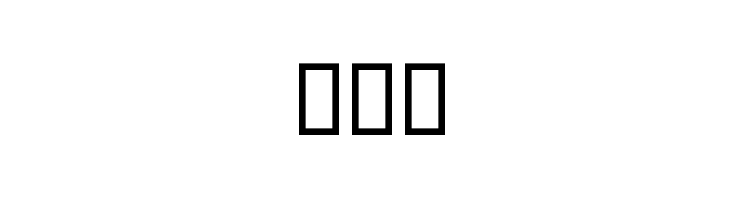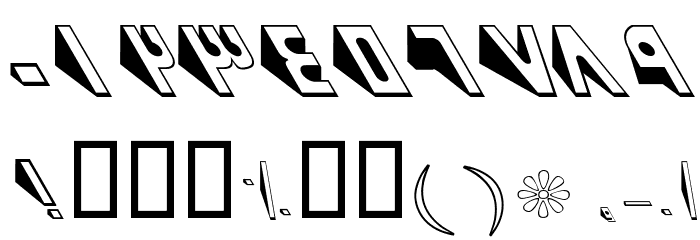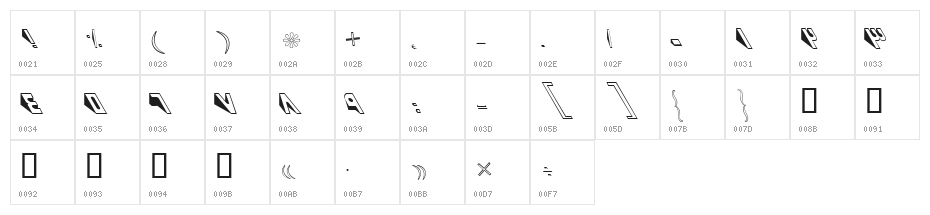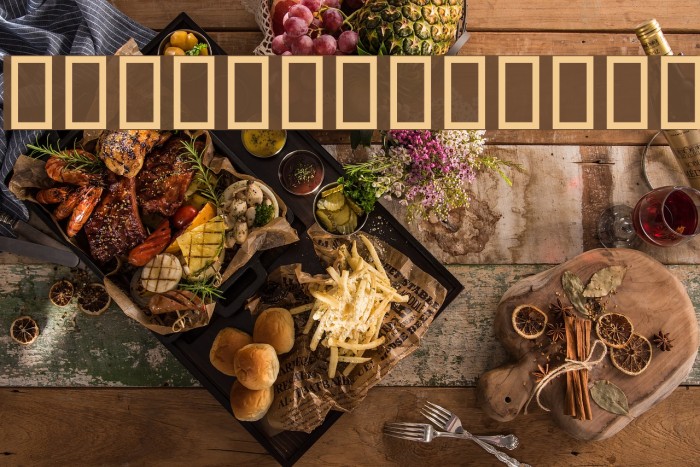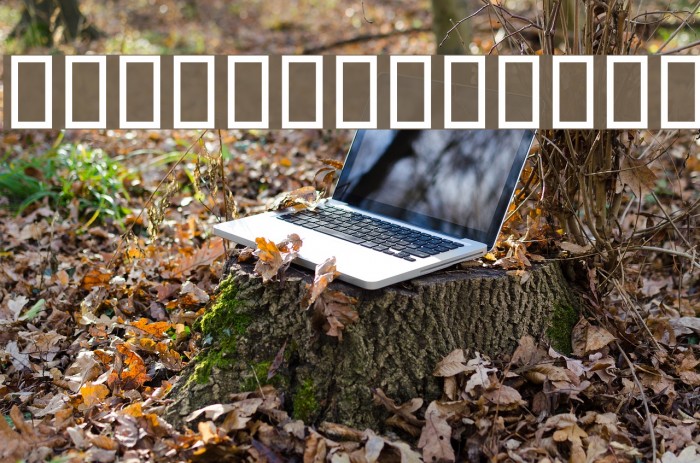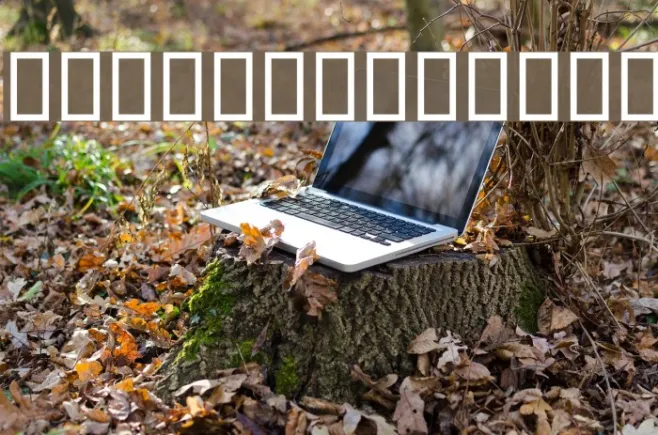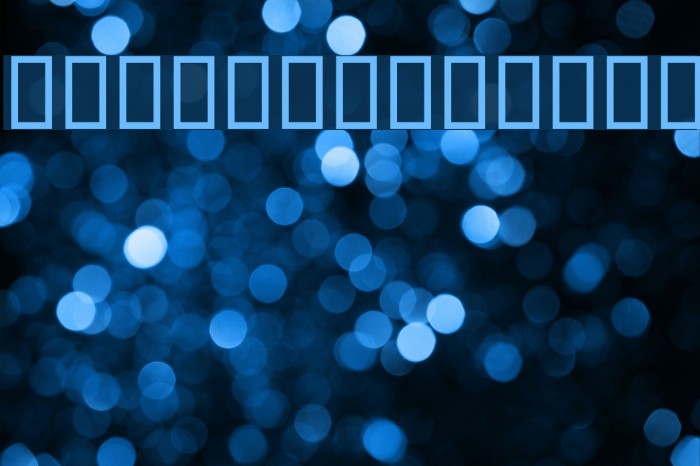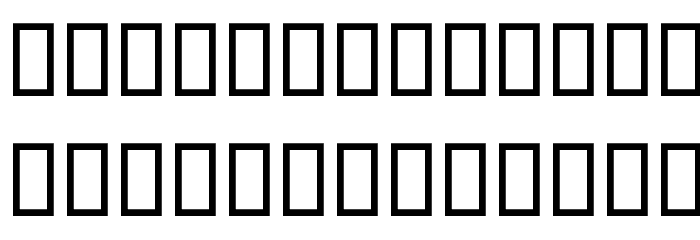
Kaj Font
Kaj Description
This font features a bold, geometric design with a three-dimensional effect that gives each character a sense of depth and shadow. The uppercase letters are blocky and angular, creating a strong and impactful appearance. The lowercase letters maintain the same boldness and geometric style, ensuring consistency throughout the typeface. Numbers and special characters follow the same design principles, making them easily recognizable and visually cohesive. The font's unique style is both modern and futuristic, making it suitable for projects that require a standout, eye-catching typeface.
| Proposed Projects | Ideal for branding, posters, video game graphics, and any project needing a striking, modern typeface. |